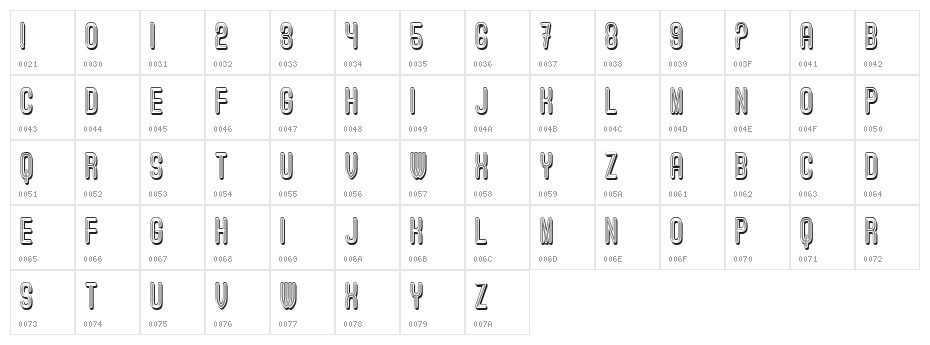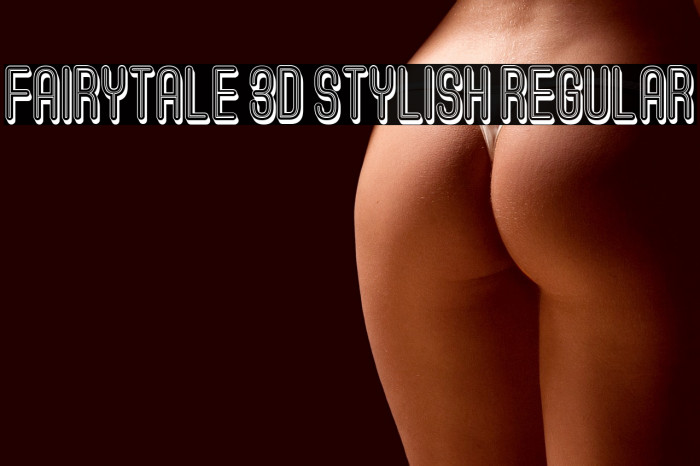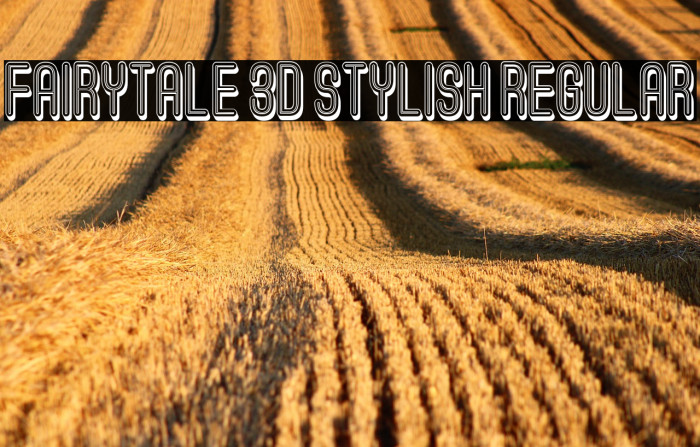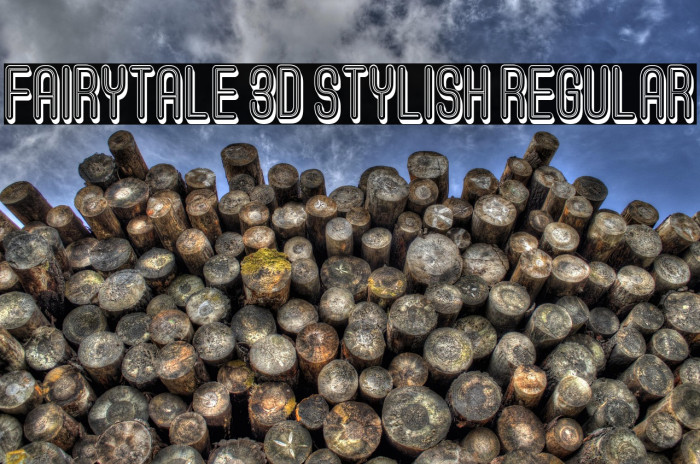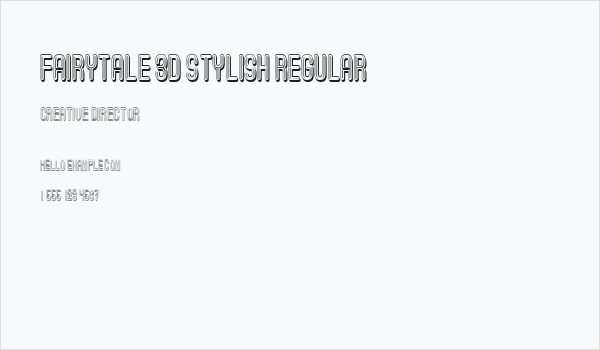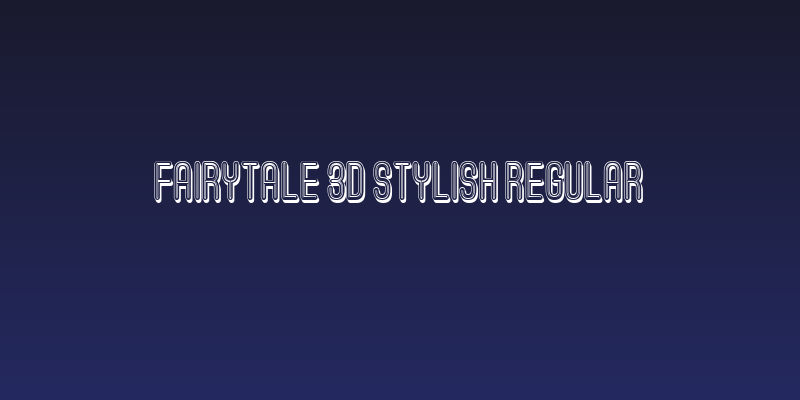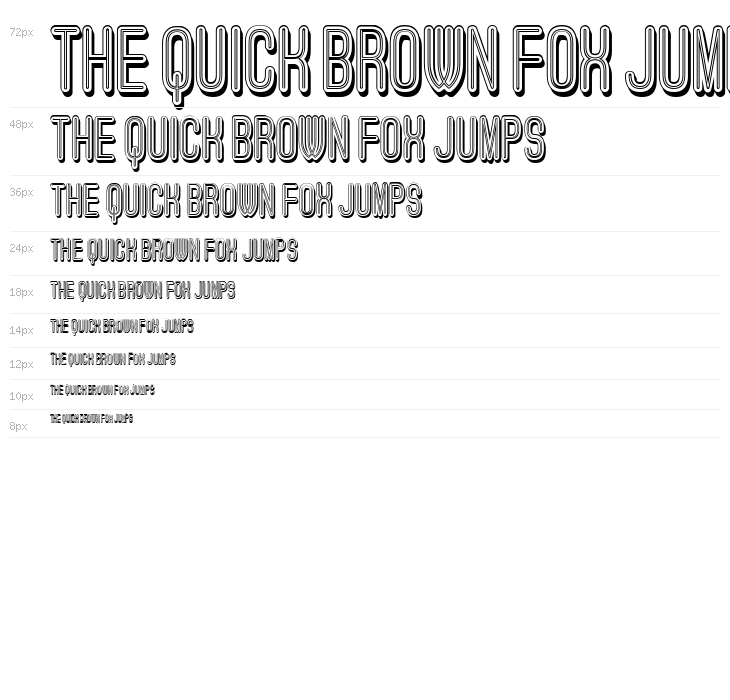
Fairytale 3D Stylish Regular Font
Fairytale 3D Stylish Regular Description
This font features a bold, three-dimensional style with a playful and whimsical appearance. The characters are outlined with a thick black border, creating a striking contrast against the white interior. The design incorporates a layered effect, giving each letter a sense of depth and dimension. The uppercase letters are uniform in height, while the numbers maintain a consistent style, ensuring readability. The font's unique style makes it ideal for eye-catching designs and creative projects.
| Overall Style | Playful, Whimsical, Modern |
| Proposed Projects | Ideal for children's book covers, playful branding, posters, and creative digital media. |